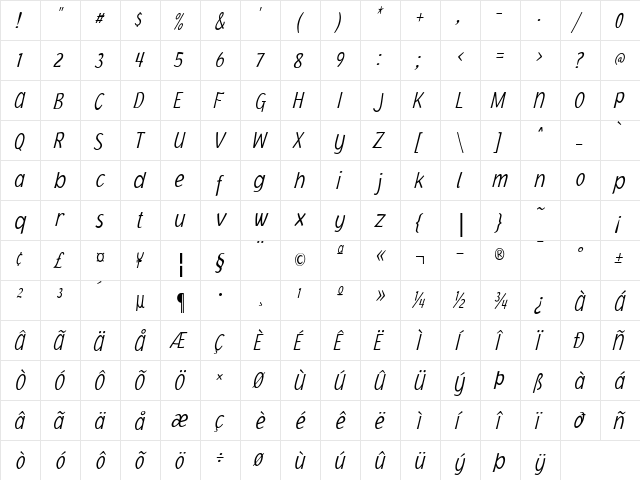
Jacoby Cond ICG XLight Italic Font Preview
Design Context for Jacoby Cond ICG XLight Typeface
Jacoby Cond ICG XLight takes a measured approach to typography — its balanced proportions and neutral character make it a reliable workhorse for both digital and print work. The dynamic lean of this cut emphasises speed and emphasis in any layout. The delicate stroke weight brings airiness and refinement to layouts. The condensed width makes it efficient for tight spaces without sacrificing legibility.
Pro Tip: Use Jacoby Cond ICG XLight for emphasis, pull quotes, and subheadings where its slanted energy can add rhythm to the layout.